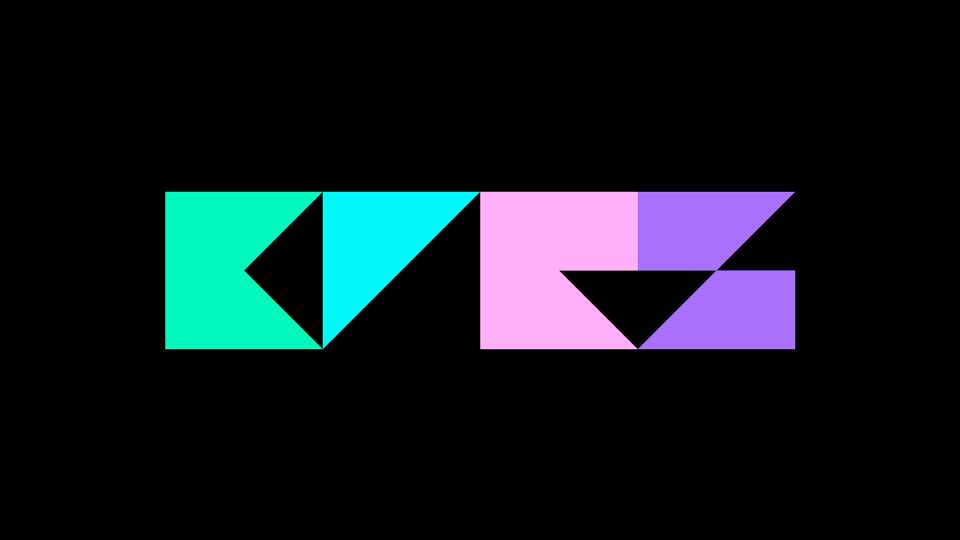
Download KTRZ typeface. a minimal geometric font family in two styles. KTRZ is great for typography, symbols, decorations, backgrounds, minimal designs and fancy stuff.
Designer: Kite